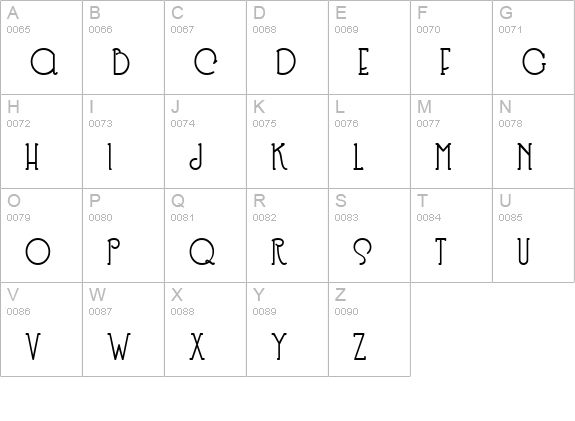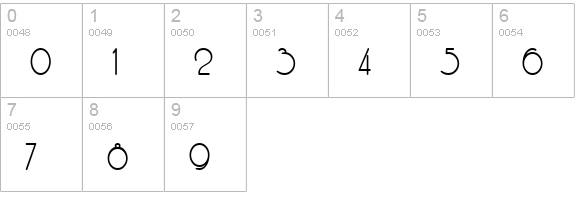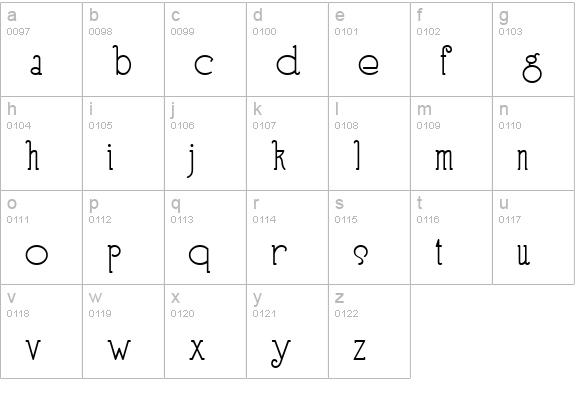
SpeedballNo3 Font Details
SpeedballNo3 is a captivating and versatile typeface that combines elegance with a touch of edginess. This font is perfect for projects that require a balance of sophistication and modernity. With its sleek lines and stylish curves, SpeedballNo3 adds a touch of sophistication to any design. This font is freely available to download at FontsMarket.com, allowing you to easily incorporate it into your projects without any hassle. Whether you're designing a logo, creating a poster, or crafting a unique branding identity, SpeedballNo3 is the perfect choice to make your designs truly stand out. The characters in SpeedballNo3 are expertly crafted, ensuring smooth and flowing letterforms that are visually pleasing to the eye. This font is highly legible, making it suitable for a wide range of applications, from digital platforms to print media. SpeedballNo3 offers a variety of different weights and styles, giving you the flexibility to experiment and create truly unique designs. Whether you prefer a bold and striking look or a more subtle and delicate aesthetic, this font has got you covered. With its timeless and versatile design, SpeedballNo3 is sure to become a go-to choice for designers and creatives alike. So why wait? Download this amazing font for free at FontsMarket.com and unlock a world of possibilities for your next design project.